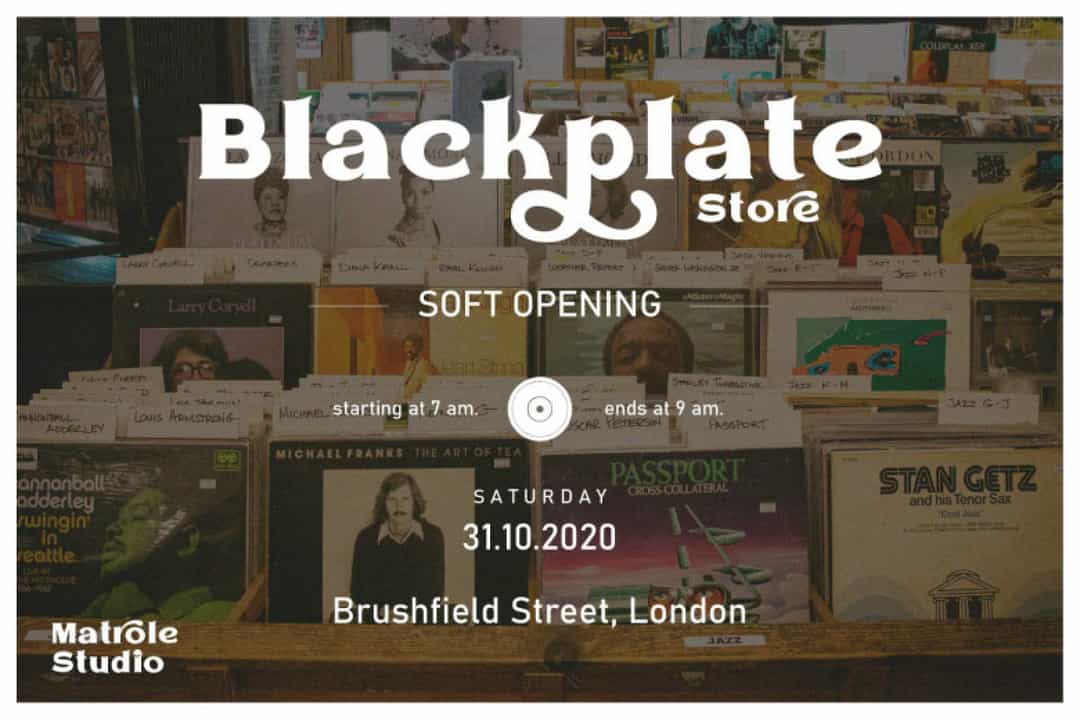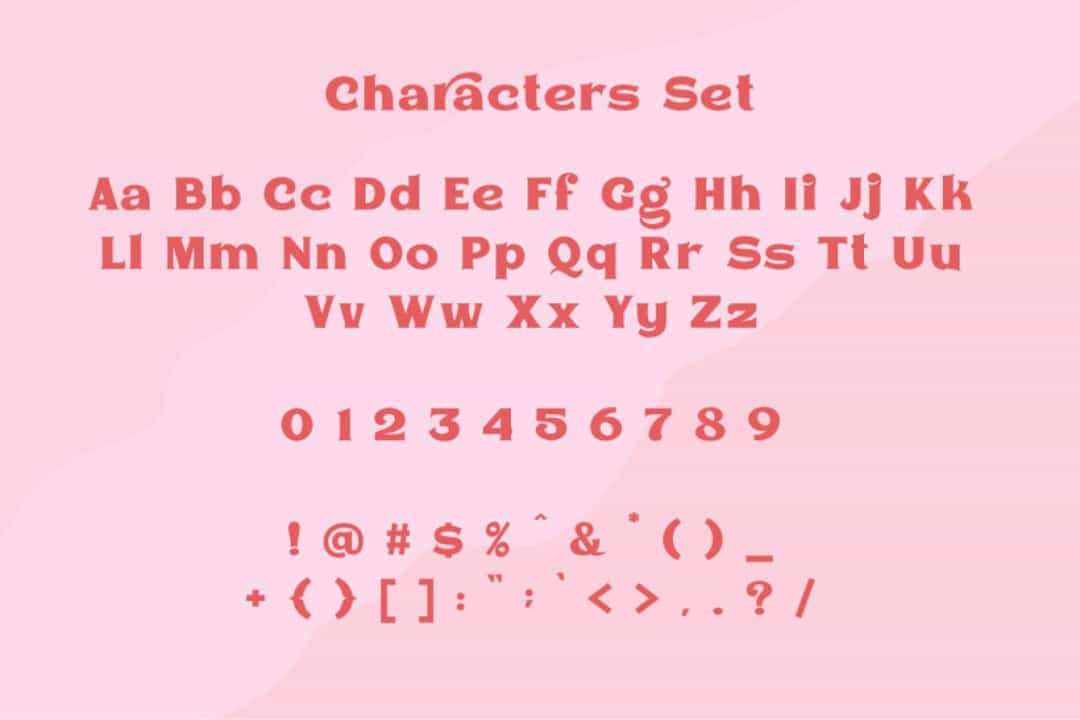
Medina can be described as a stylish typeface with serif, and elegant shapes of the characters. Best suitable for the elegant and vintage projects and with two font files and alternate characters, Medina is ideal for working on various designs. This typeface package does not contain statistical alternates, but Medina is designed with accents in multiple languages.